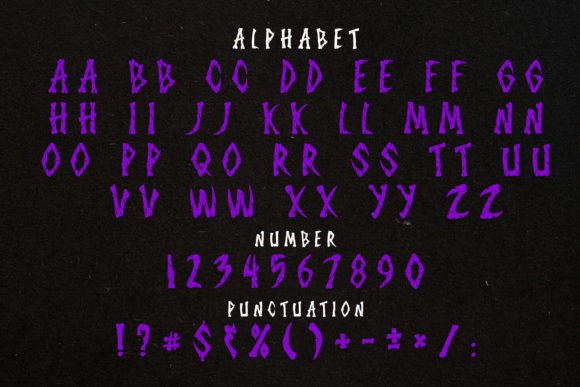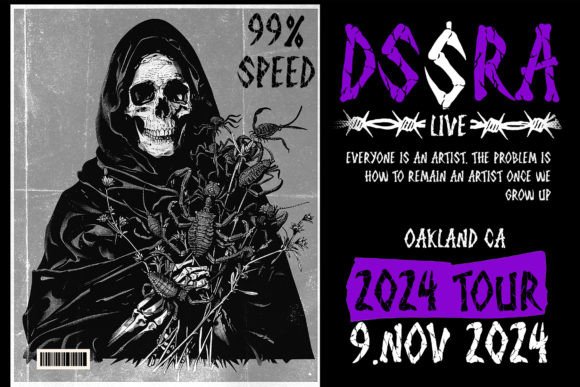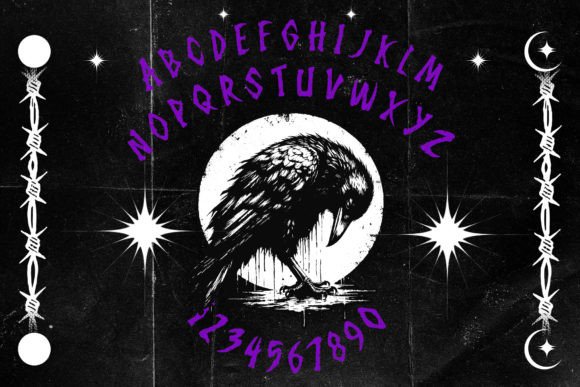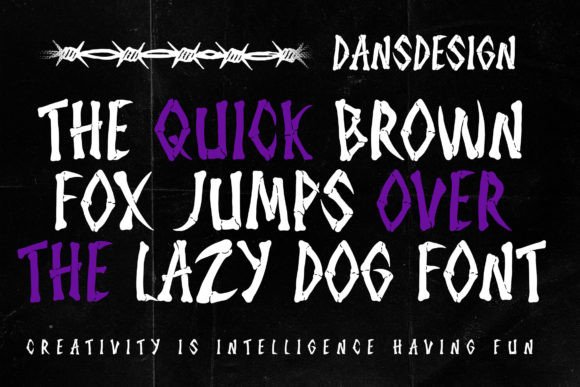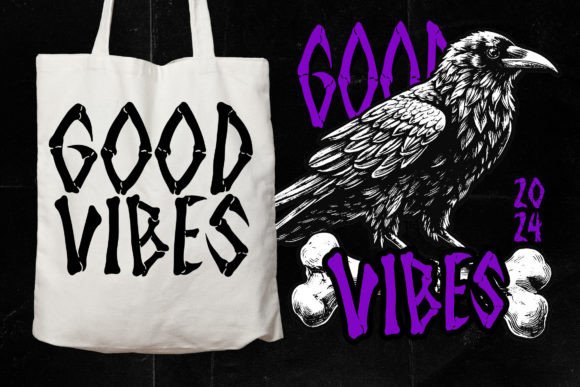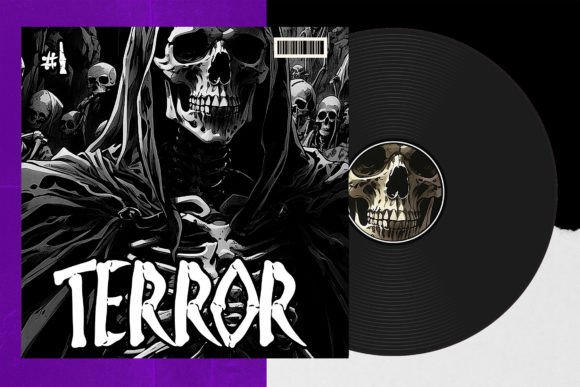
Introduction to Shock Scream Font
Have you ever found yourself in the middle of a creative project, struggling to convey the perfect amount of edginess and attitude? I know I have. As a designer, I’ve spent countless hours searching for the perfect font to elevate my work, and that’s when I stumbled upon the Shock Scream Font – a game-changing marker display font that’s about to take your designs to the next level.
With its unique blend of retro and urban flair, the Shock Scream Font is an absolute must-have for any designer looking to add a touch of high-quality sophistication to their work. Whether you’re working on a business branding project, creating eye-catching logos, or designing apparel, this font is sure to deliver.
Key Features of Shock Scream Font
- Unique, bold, and edgy design perfect for creative projects that require a high-impact visual statement.
- Single font file with multiple styles and weights, providing flexibility for designers to create a wide range of visual effects.
- Perfect for designers and artists looking for a bold and eye-catching font to elevate their creative project.
Honest Review: Shock Scream Font
- ✨ The font’s creative and edgy design makes it perfect for projects that need a bold statement.
- ✨ The transparent background allows for easy customization and flexibility in design.
- ✨ The font is well-suited for digital projects, including social media graphics, posters, and more.
- ⚠️ The font may not be suitable for all audiences, as its edgy design may be too intense for some projects.
Overall, I was impressed by the Shock Scream Font’s potential for creative projects. Its unique design and high quality make it a valuable addition to any design resource collection. While it may have some limitations, it’s definitely worth considering for the right project.
Common Use Cases for Shock Scream Font
The Shock Scream Font is a high-quality design resource that can be used in a variety of creative projects, including posters, flyers, and social media graphics. Its transparent background makes it easy to use in design applications and can be layered on top of other design elements.